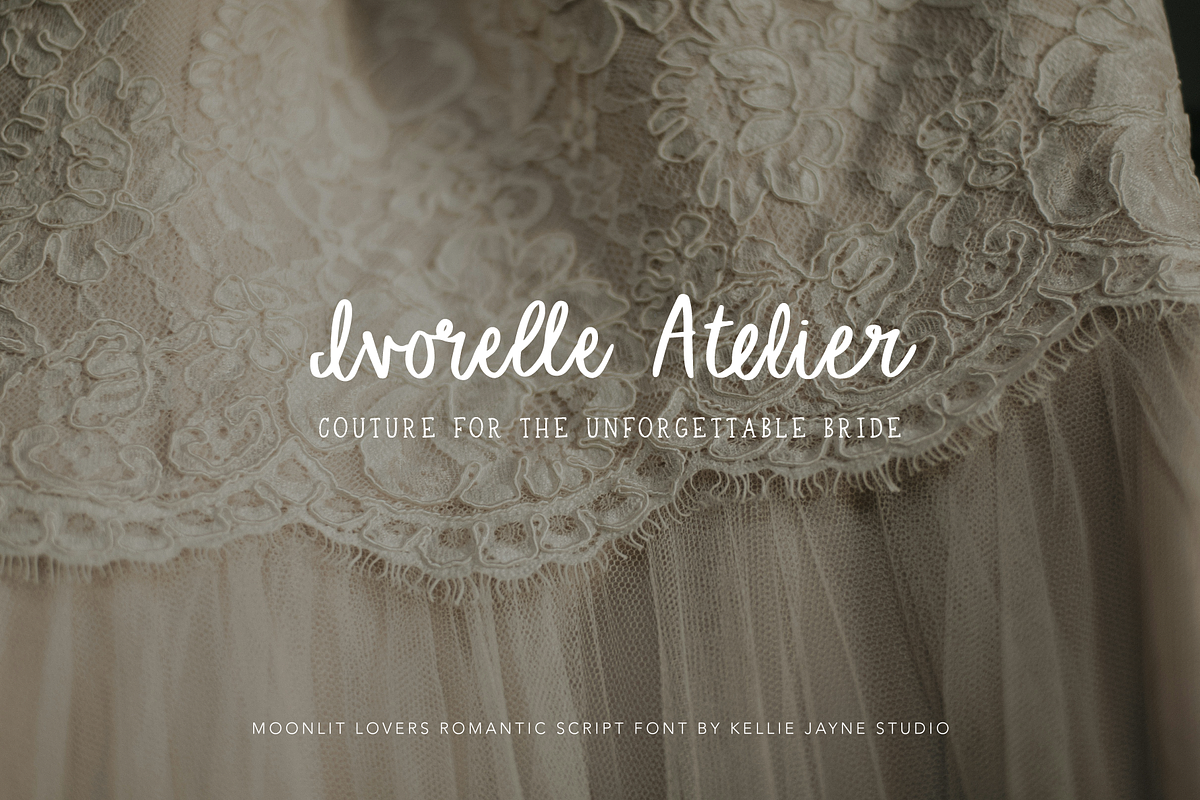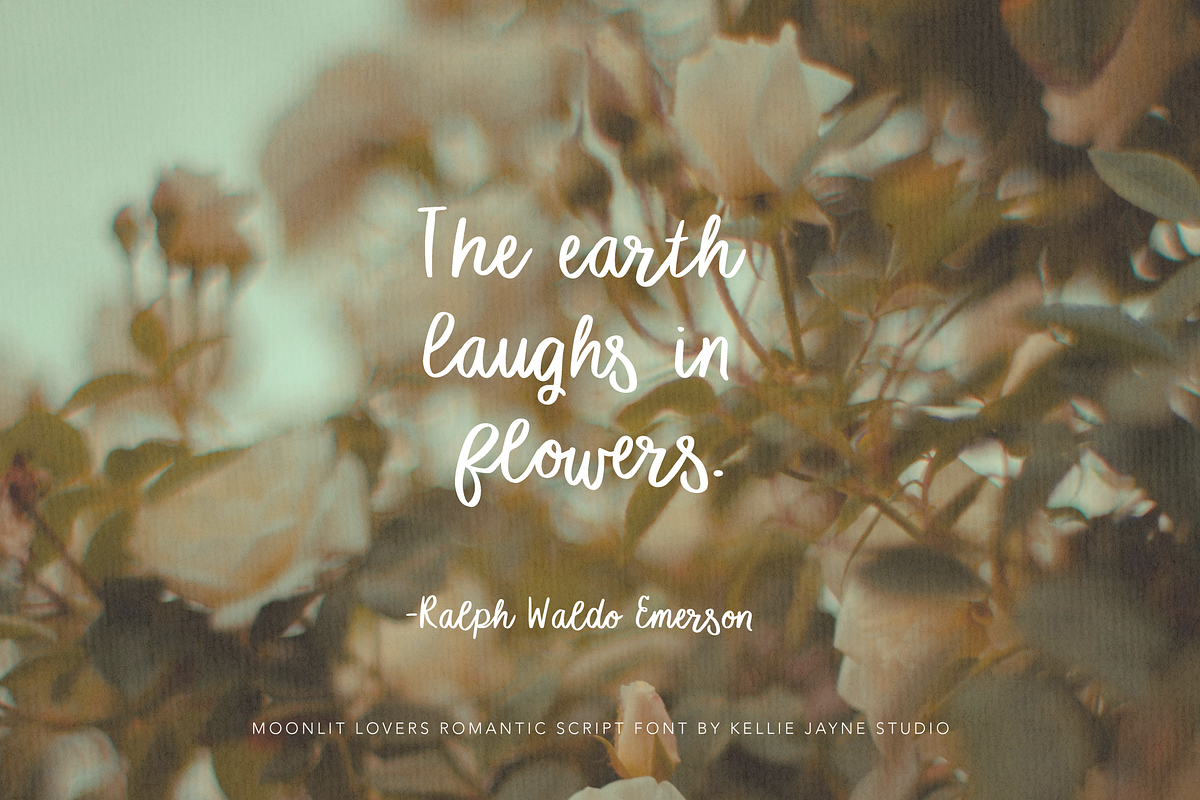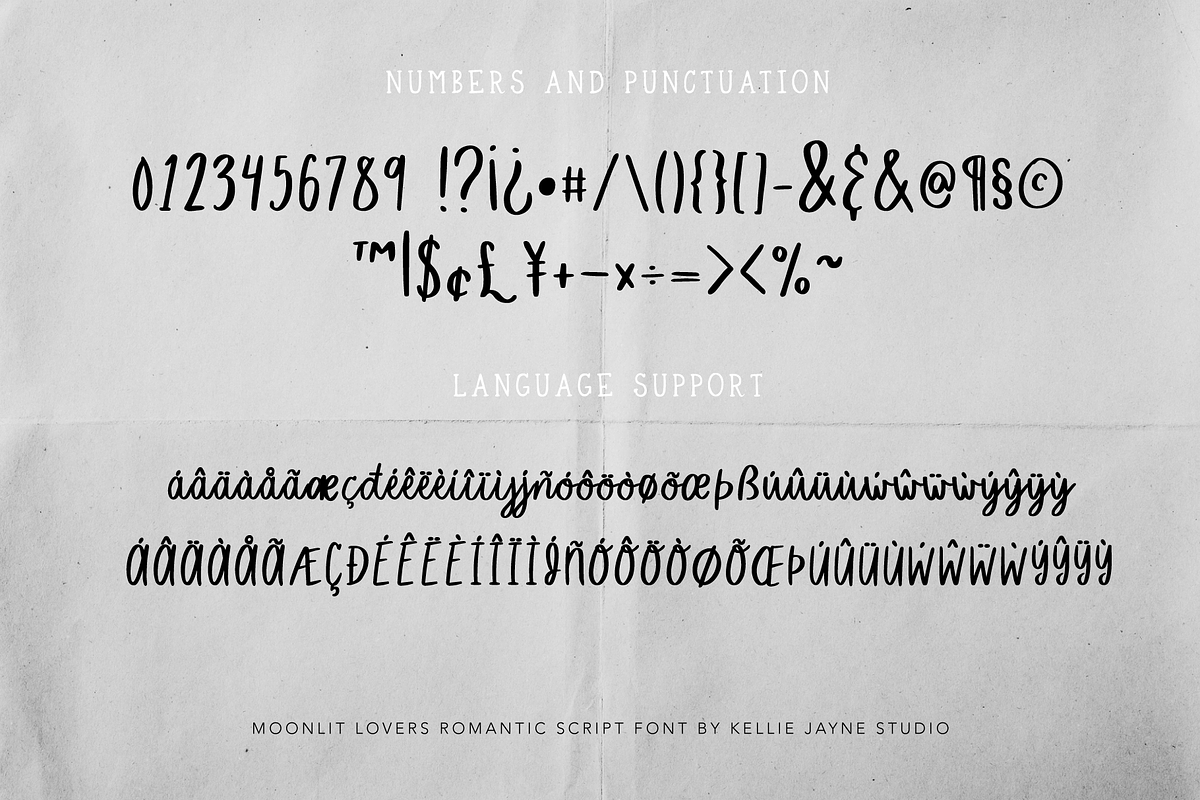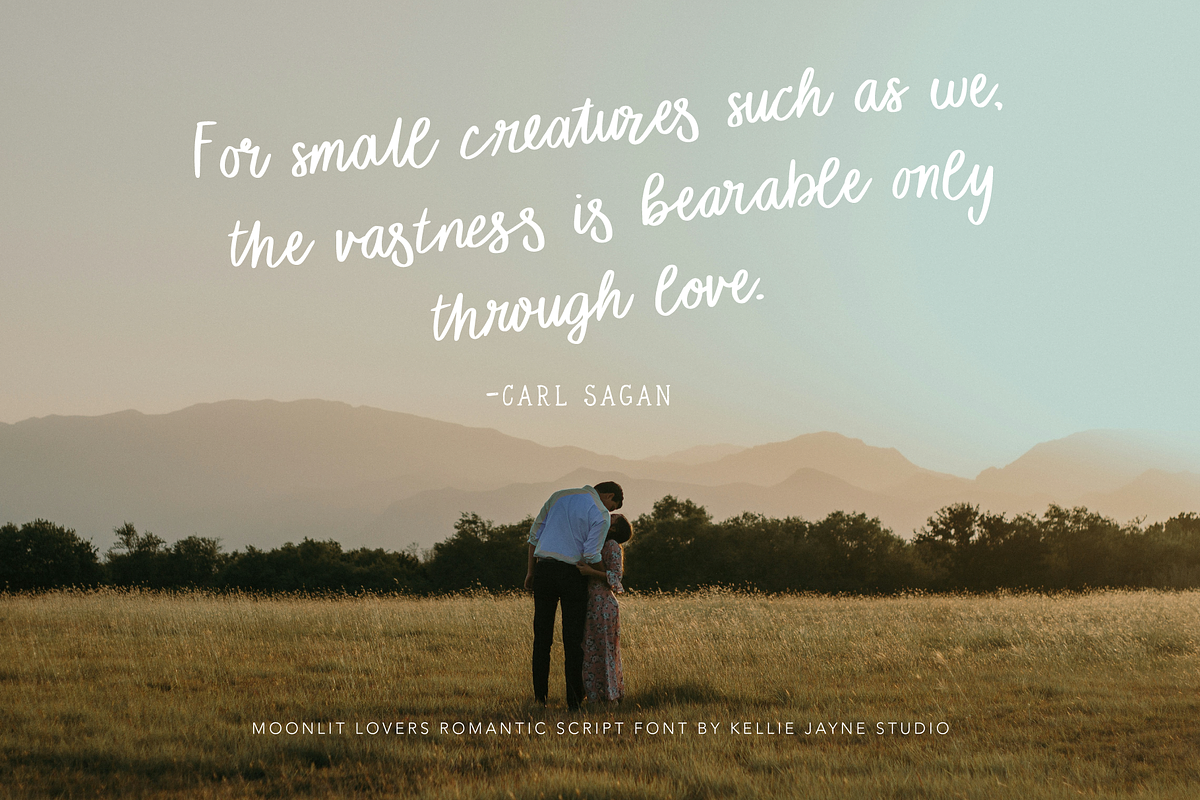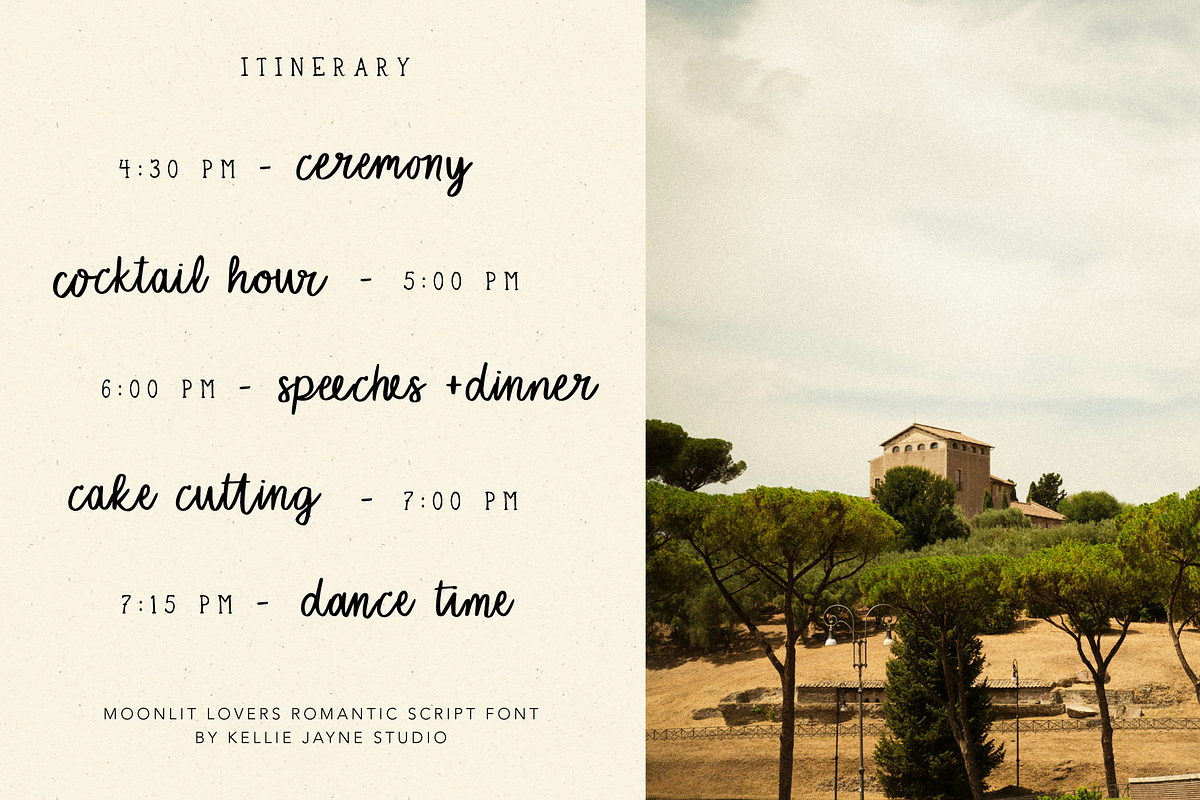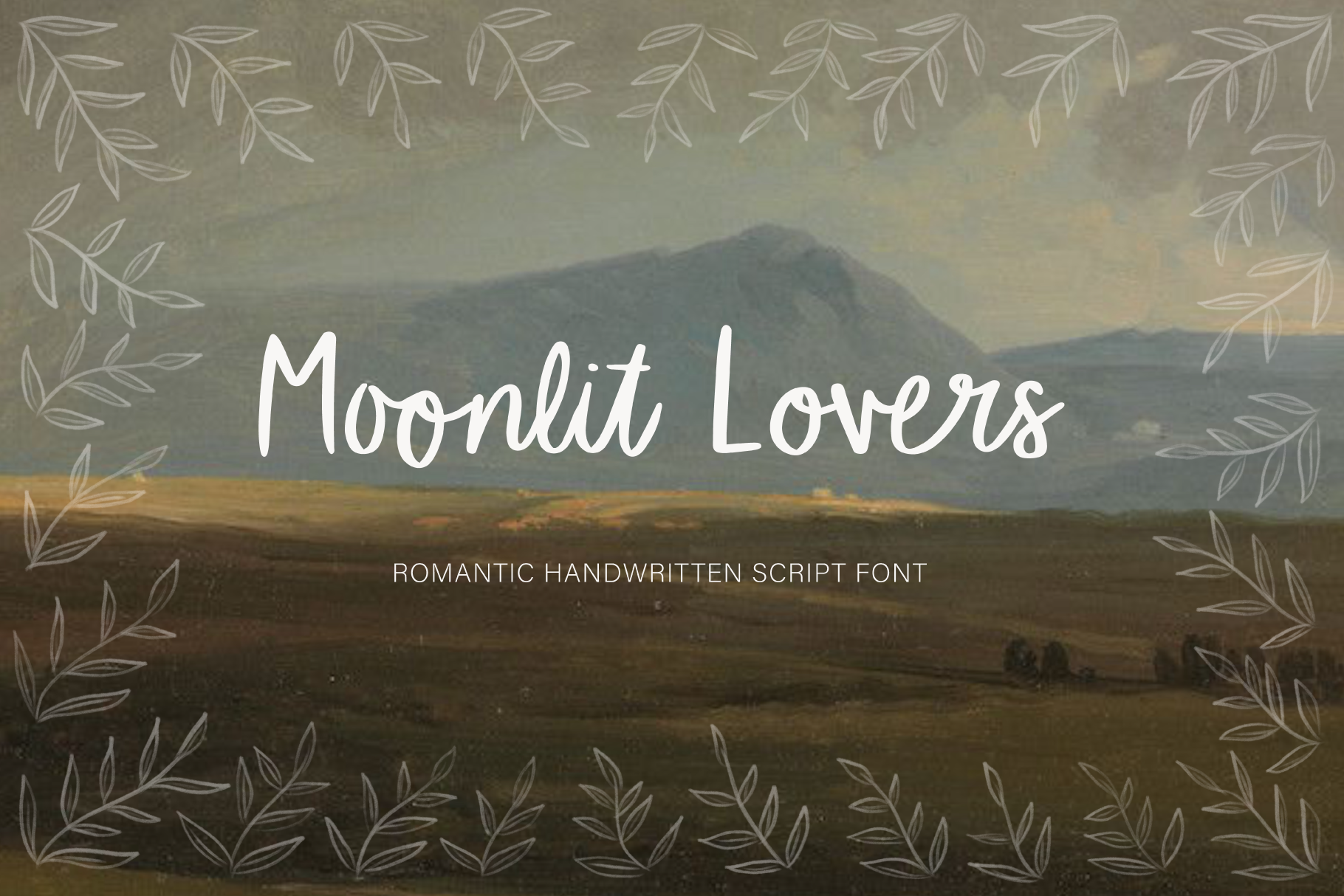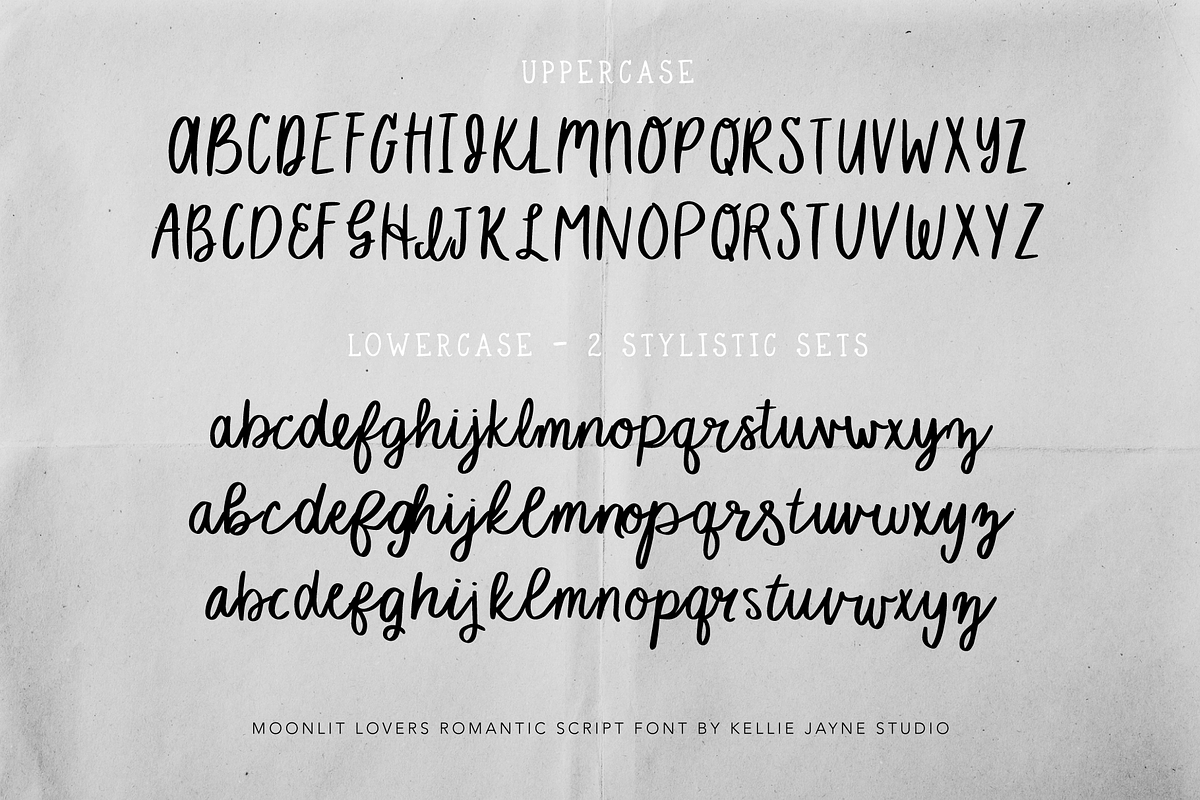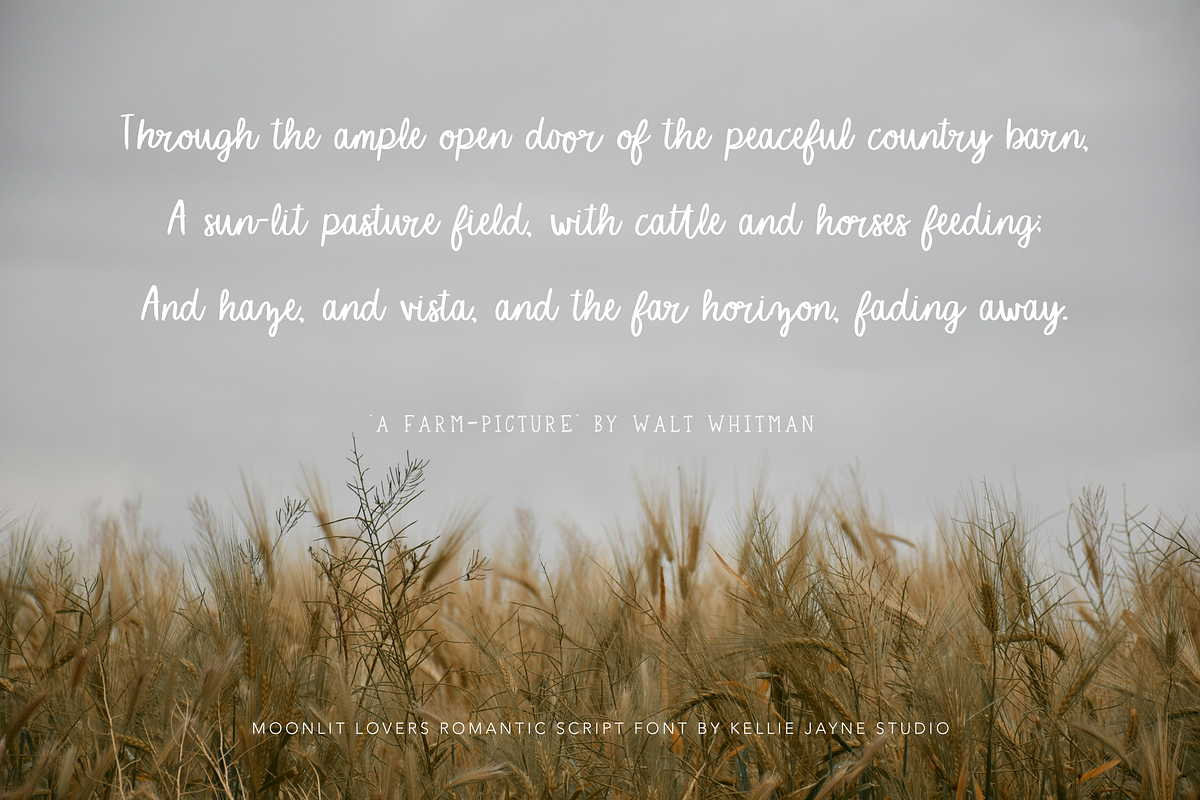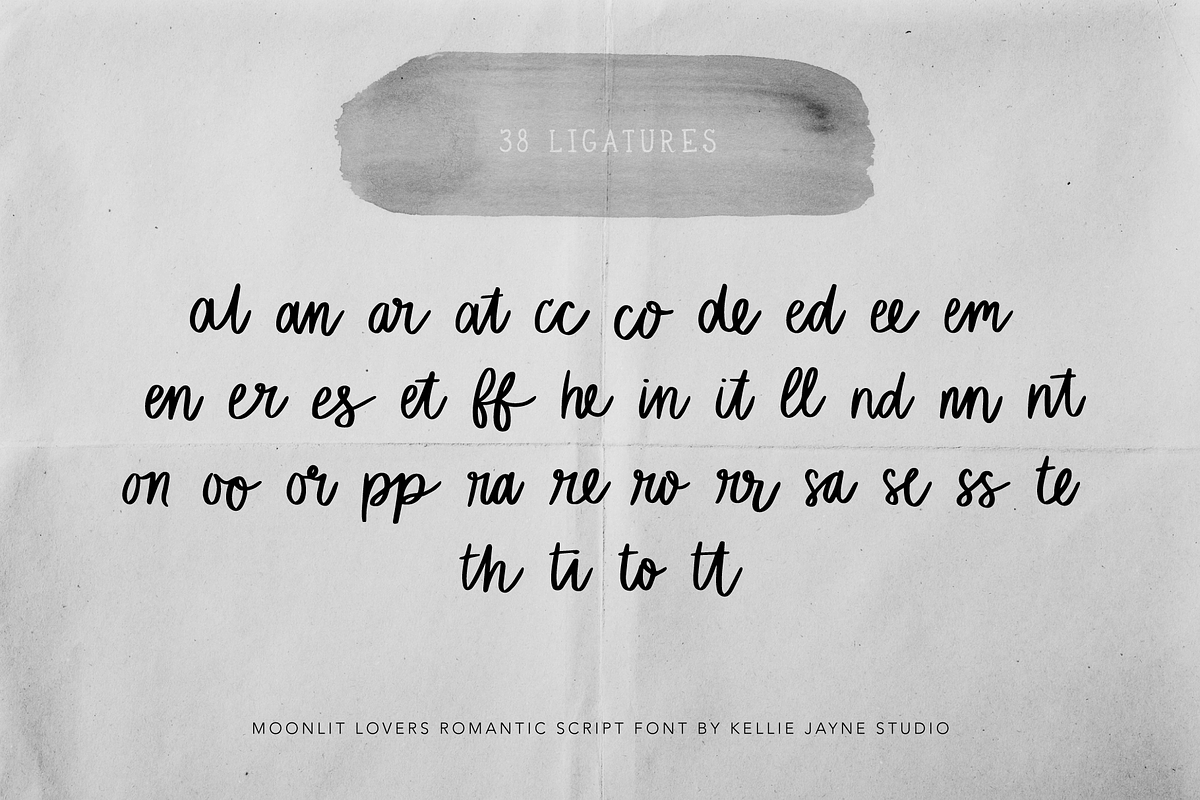
Moonlit Lovers Romantic Script Font
Moonlit Lovers is a romantic handwritten script inspired by secret rendevous and moonlit kisses. With 3 lowercase stylistic sets, it is perfect for recreating that truly handwritten look.
Moonlit Lovers contains upper and lowercase letters (multiple stylistic sets), multilingual support, punctuation, numbers, and discretionary ligatures.